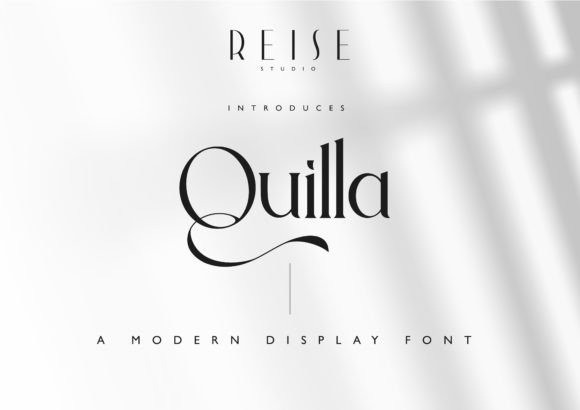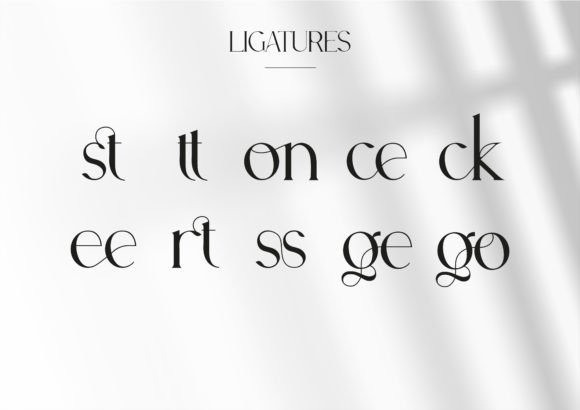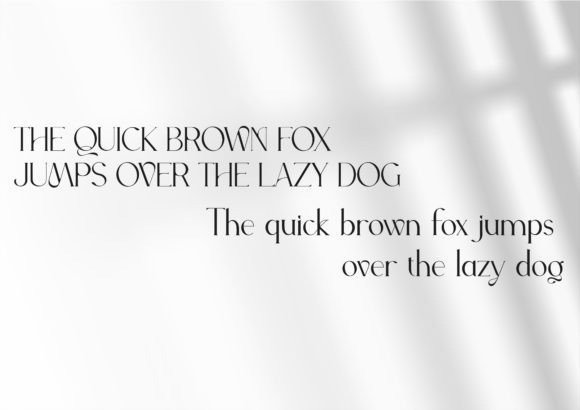
Quilla Font
Quilla is a modern and stylish serif display typeface. Quilla is perfect for creating stunning logos and branding, invitation designs, and more. Whatever you’re creating and designing Quilla is bound to make an impact and turn heads. This font is PUA encoded which means you can access all the glyphs and ligatures with ease!